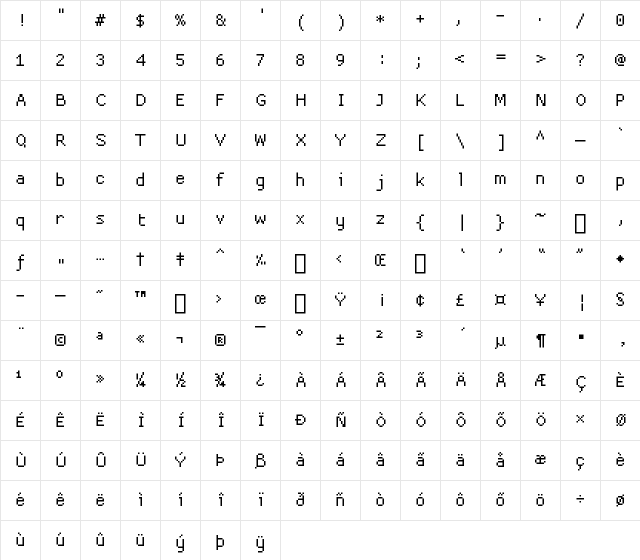
ProggyCleanTTCE Nerd Font Book
Design Context for ProggyCleanTTCE Nerd Font
ProggyCleanTTCE Nerd Font is a composed and adaptable typeface that performs quietly and consistently across a wide range of design contexts.